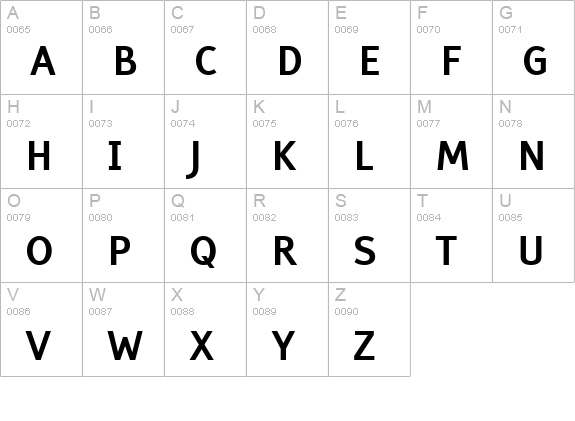
Tiresias Infofont Font Details
Tiresias Infofont font is a remarkable typeface that effortlessly combines elegance with readability. Its clean and modern design makes it perfect for a wide range of applications, from professional documents to creative projects. What sets Tiresias Infofont font apart is its accessibility. This font has been specifically designed to ensure legibility for individuals with visual impairments, making it a valuable tool for inclusive design. Its generous spacing and clear letterforms ensure maximum readability, allowing everyone to access and appreciate the content. Not only is Tiresias Infofont font a powerful tool for inclusive design, but it is also freely available to download at FontsMarket.com. This means that designers, educators, and individuals alike can easily access this font and integrate it into their projects without any financial barriers. By providing this font free of charge, Tiresias Infofont font promotes equal access to information and empowers individuals to create content that is inclusive and accessible to all. Whether you are a designer looking to create inclusive designs, an educator aiming to make learning materials accessible to every student, or an individual who values equal access to information, Tiresias Infofont font is the perfect choice. Download it for free at FontsMarket.com and join the movement towards inclusive design and accessibility.